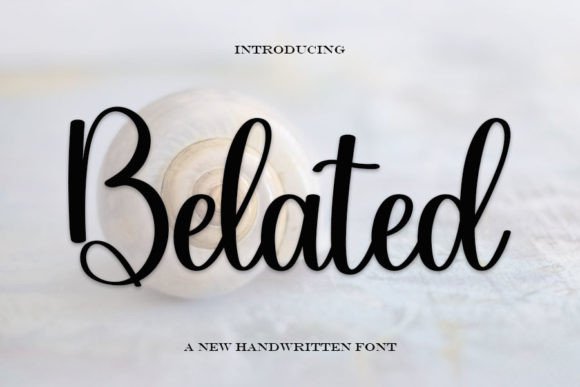
Behold, the Belated Font – A Masterpiece of Script Calligraphy Awaiting Your Creative Touch
In the realm of script fonts, Belated stands apart as a mesmerizing symphony of elegance and fluidity, crafted with the utmost care by the talented putrasyahreza00. This meticulously designed script font, with its graceful curves and enchanting charm, is the perfect companion for your creative endeavors, ready to transform your words into works of art.
Belated beckons you to explore the world of script tattoos, where your imagination knows no bounds. Its enchanting characters, reminiscent of handwritten calligraphy, will bring your artistic vision to life, leaving an indelible mark on hearts and minds. Whether you're an aspiring tattoo artist seeking to create unique and captivating designs or a creative soul yearning to express yourself through the written word, Belated holds the key to unlocking your artistic potential.
Immerse yourself in the timeless beauty of Belated, a font that transcends trends and fads, embodying a classic elegance that will endure for generations. Its intricate swashes and delicate flourishes add a touch of sophistication to your designs, while its unwavering legibility ensures your message is conveyed with clarity and impact.
But Belated is not merely a pretty face; it's a font of versatility, adapting seamlessly to a myriad of creative projects. Unleash your creativity in designing wedding invitations that exude romance and elegance, create personalized greeting cards that warm hearts, or craft stunning logos that leave a lasting impression. The possibilities are endless, bounded only by the limits of your imagination.
With Belated as your trusted companion, you'll discover a world of creative possibilities, etching your mark on the hearts and minds of those who encounter your designs. Join the ranks of discerning designers and artists who have embraced the magic of Belated, and embark on a journey of artistic expression that will leave you breathless.
So, dear creative soul, let Belated be your muse, your guiding light in the realm of script fonts. Embrace its enchanting beauty, explore its boundless versatility, and unleash your artistic potential. With Belated by your side, there's no limit to the masterpieces you can create.